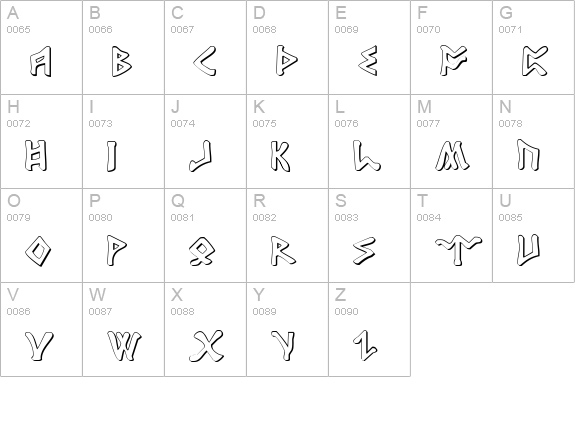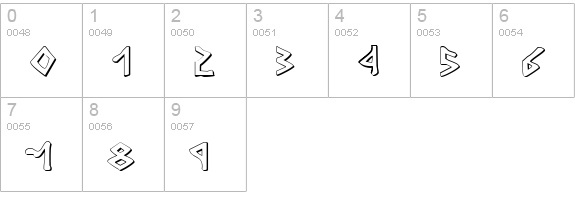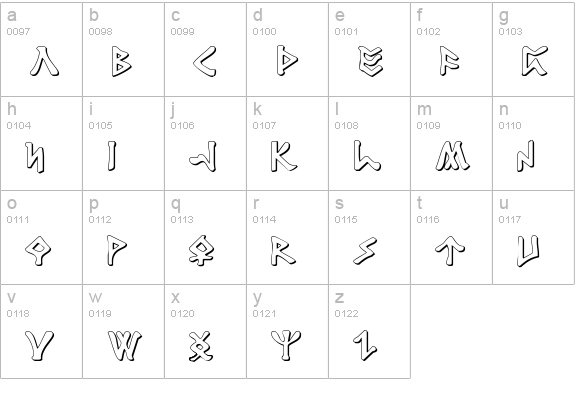
Rosicrucian 3D Font Details
The Rosicrucian 3D font is a stunning and elegant typeface that adds a touch of sophistication to any design project. With its intricate 3D effect and unique style, this font is sure to make a statement and captivate your audience. The Rosicrucian 3D font is perfect for creating eye-catching titles, headings, logos, and more. The best part? This exquisite font is completely free to download at FontsMarket.com. Embrace the beauty and versatility of the Rosicrucian 3D font in your creative endeavors and let your designs shine with this striking and captivating typeface.